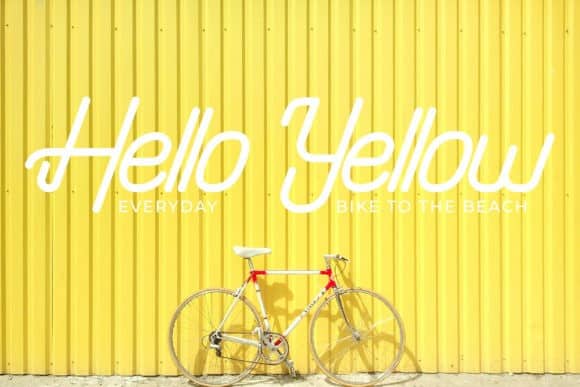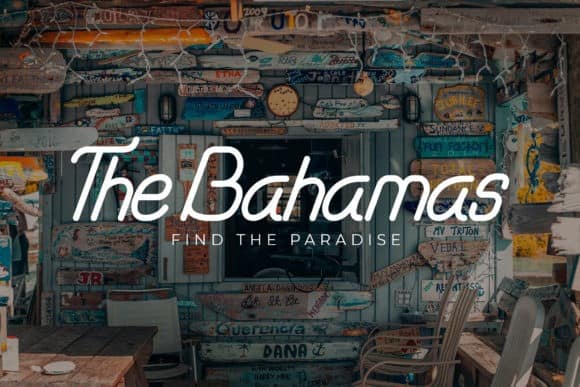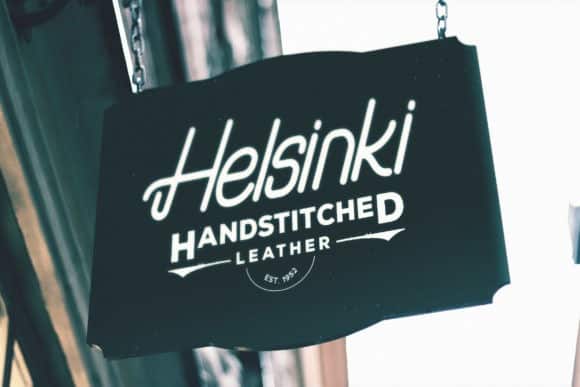
Ramona Kiev – Monoline Font
Introducing Ramona Kiev Monoline Font. This is a monoline sans serif font with vintage Style. A rounded vintage monoline. It’s clean modern-vintage display font which inspired from old school letterpress and rounded sans serif shapes. It is design and shared by candacreative. It’s a magical handwritten font carefully created with a touch of elegance. This is a beautiful combination of timeless elegance and authentic calligraphy. Fall in love with its authentic feel and use it to create gorgeous wedding invitations, beautiful stationary art, eye-catching social media posts, and cute greeting cards.